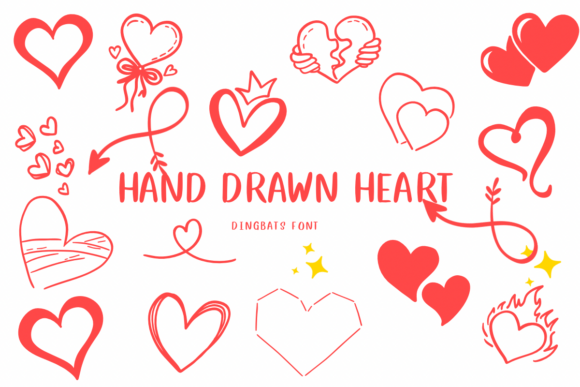
Who hasn’t sat at their desk, surrounded by scraps of paper and broken pencils, trying to come up with the perfect idea? The moment of inspiration, when the creative juices start flowing and anything seems possible, is a magical one. It’s in these moments that we need the right tools to bring our visions to life. For designers, the Hand-drawn Heart Font is just such a tool.
This unique dingbats font is more than just a collection of heart illustrations – it’s a game-changer for adding a personal touch to any project. With its range of heart styles, from broken to flaming, and its ability to be scaled and colored with precision, the Hand-drawn Heart Font is a valuable addition to any designer’s toolkit. Whether you’re working on a Valentine’s Day project or just want to add a touch of whimsy to your designs, this font is sure to help you create something truly special.
Hand-Drawn Heart Font Key Features
- Font Style: A whimsical, hand-drawn font with a romantic and playful feel, perfect for Valentine’s Day, love letters, or any occasion that calls for a touch of warmth and personality.
- Character Set: Includes a variety of characters, including uppercase and lowercase letters, numbers, punctuation marks, and special characters, making it suitable for a wide range of applications.
- Unique Characteristics: The Hand-Drawn Heart Font features a distinctive, hand-drawn look with varying line widths and subtle imperfections, giving it a one-of-a-kind feel that sets it apart from other fonts.
Hand-Drawn Heart Font Review
Overall, I’m loving the Hand-Drawn Heart Font. It’s a charming and whimsical addition to any design project.
- ✨ Unique and playful style that adds a touch of personality to designs
- ✨ Versatile and can be used in a variety of contexts, from wedding invitations to social media graphics
- ✨ High-quality vector files that are easily scalable
However, there are some limitations to keep in mind:
- ⚠️ Some letters and symbols may not be as intricately detailed as others, which can affect legibility
- ⚠️ Limited character set, which may require additional font pairing for more complex designs
- ⚠️ May not be suitable for formal or professional applications due to its whimsical nature
Overall, I’d highly recommend the Hand-Drawn Heart Font for designers looking to add a touch of personality and whimsy to their projects. While it may have some limitations, its unique style and versatility make it a valuable addition to any design library.
Experiment with different font sizes and colors to create a unique look. Pair the Hand-Drawn Heart Font with other fonts to add contrast and interest. Use it to create eye-catching headings, titles, or quotes.
The Hand-Drawn Heart Font is ideal for Valentine’s Day designs, love-themed posters, and romantic invitations. It’s also great for adding a touch of whimsy to wedding stationery, birthday cards, or social media graphics.